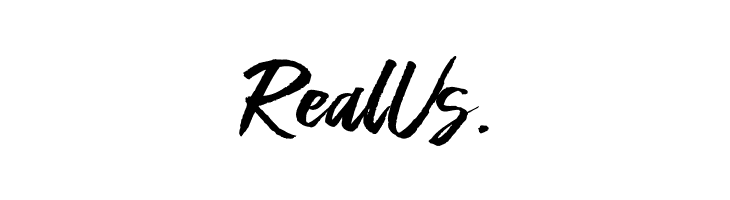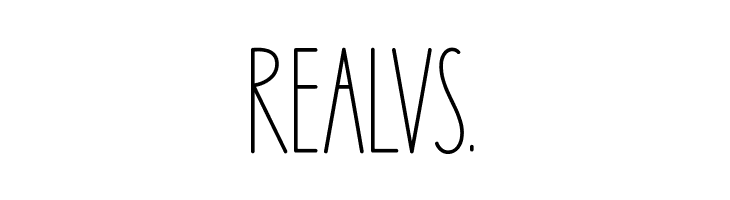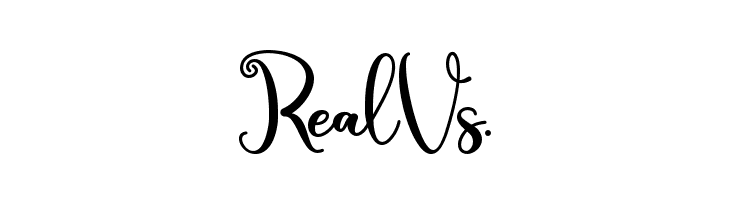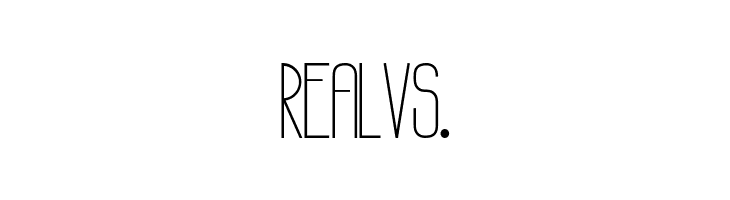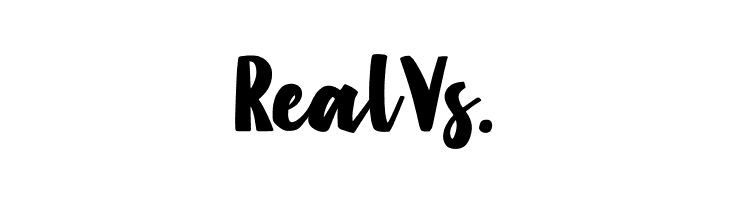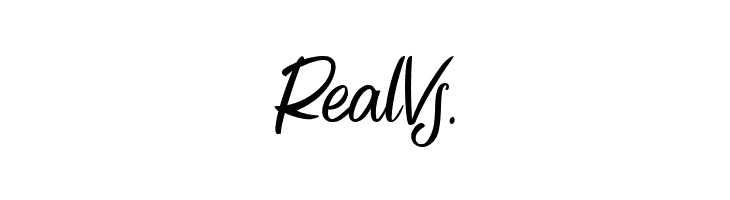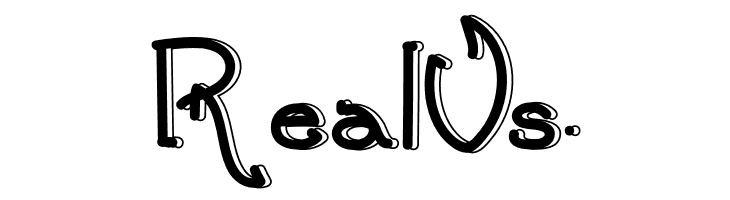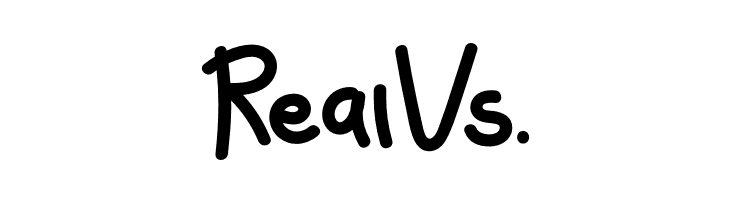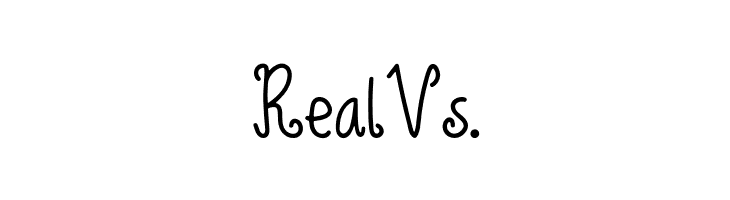
A playful, modern font with rounded, slightly condensed characters and unique curves.
A playful, bold font with a hand-drawn, comic book style.
A playful, rounded font with smooth curves and a friendly style.
A playful, rounded font with a friendly and approachable style.
A dynamic and energetic script font with fluid, cursive strokes.
A lively, expressive script font with a fluid, handwritten style.
An elegant, italic script font with flowing, handwritten strokes.
A playful, hand-drawn outline font with a whimsical and cartoonish style.
A playful and whimsical font with uneven, dynamic letterforms.
A playful, outlined font with quirky, exaggerated serifs and a whimsical style.
A bold, dynamic script font with a hand-painted, artistic style.
A bold, expressive script font with a hand-painted, artistic style.
A bold, playful handwritten font with an energetic and artistic style.
A playful, handwritten font with a casual and friendly appearance.
A tall, narrow, and modern font with clean lines and a uniform stroke width.
A tall, narrow, and modern font with clean lines and minimal curves.
A tall, narrow font with a modern, minimalist design and consistent stroke widths.
A playful, handwritten font with tall, narrow letters and a whimsical style.
A playful and whimsical font with decorative curls and loops.
A playful, hand-drawn font with rounded, bubbly characters.
A bold, handwritten font with playful, rounded characters.
An elegant, decorative script font with intricate swirls and loops.
A playful and whimsical font with curly, flowing strokes and decorative loops.
A playful, curly font with a hand-drawn, whimsical style.
A bold, decorative font with grunge and inline detailing.
A futuristic, geometric font with an alien-like appearance.
A futuristic, geometric font with bold, angular letterforms.
A bold, italicized futuristic font with sharp angles and geometric shapes.
A distressed, futuristic font with an alien-like, textured appearance.
A bold, distressed font with a futuristic and rugged appearance.
A bold, italicized, and distressed font with a futuristic and rugged appearance.
A futuristic, distressed italic font with angular, fragmented letterforms.
A futuristic, angular italic font with a sci-fi aesthetic.
A playful, hand-drawn font with a sketch-like, textured appearance.